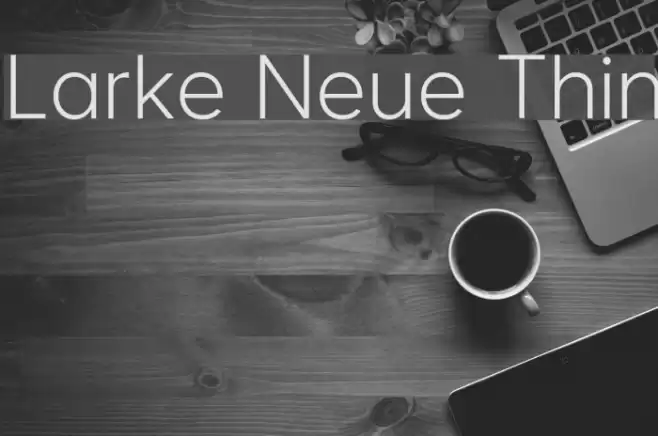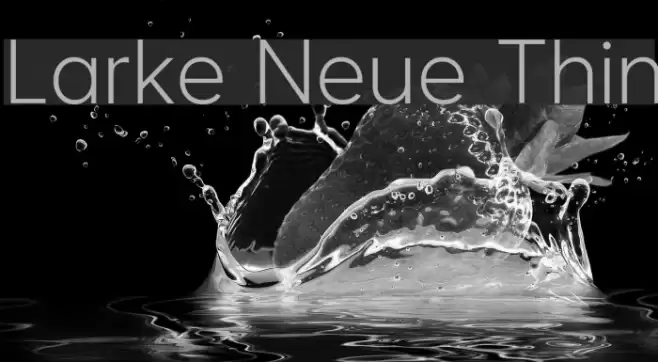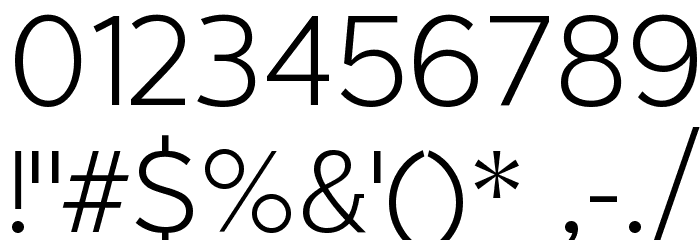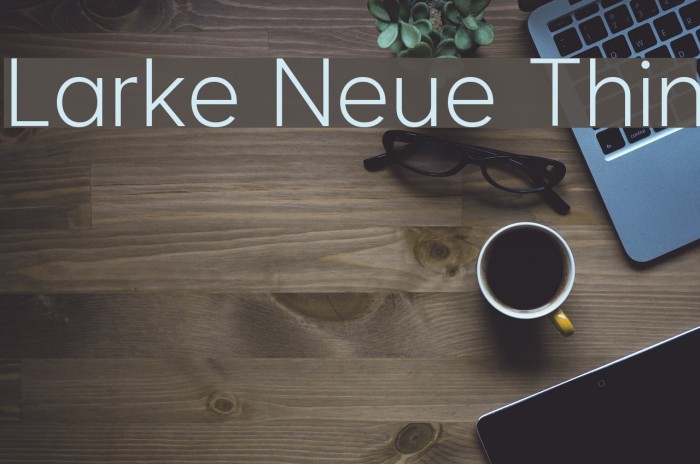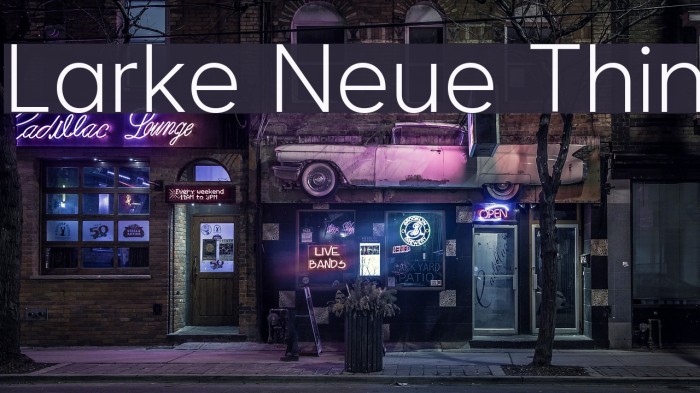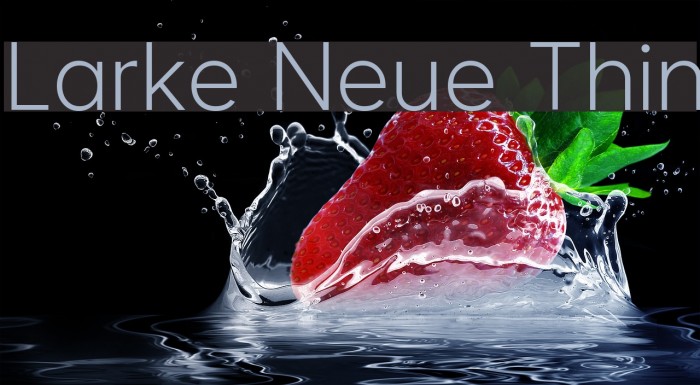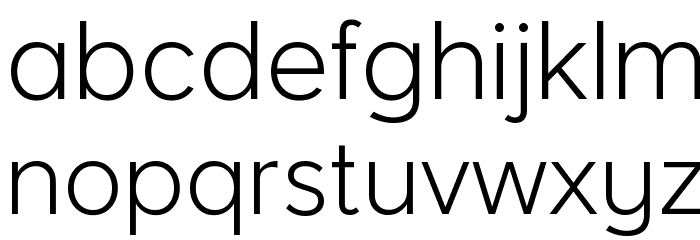
Larke Neue Thin Font
Larke Neue Thin Description
This font features a clean and modern sans-serif design with a thin weight, offering a sleek and elegant appearance. The characters are well-proportioned with a consistent stroke width, providing a harmonious and balanced look. The uppercase and lowercase letters maintain a uniform style, enhancing readability and versatility. The numerals and special characters are crafted with precision, ensuring clarity and functionality across various applications. Its minimalistic design makes it suitable for contemporary projects, emphasizing simplicity and sophistication.
A modern, thin sans-serif font with a clean and elegant design from Uncategorized fonts.
- Proposed Projects: Ideal for branding, editorial design, web design, and minimalist projects.